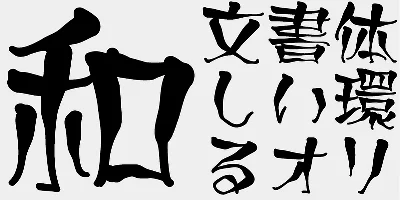
AB Tyuusyobokunenn Font
AB Tyuusyobokunenn Font is a highly stylized Japanese typeface with a distinctively traditional, literary aesthetic. The name “Tyuusyobokunenn” (中書墨年) evokes a classical feel—suggesting associations with handwritten manuscripts, ink calligraphy, and old-style printed texts. It’s an ideal choice for historical publications, cultural exhibitions, period-themed branding, or any project that aims to convey depth, heritage, and intellectual elegance.
AB Tyuusyobokunenn Font features dense brush-like strokes with subtle irregularities that give it an aged, scholarly look. Its characters feel handcrafted and expressive—perfect for titles, signage, and book covers that need to reflect authenticity and tradition. Despite its old-world charm, it maintains good readability, especially in larger text settings.
This font supports a wide range of Japanese scripts (Hiragana, Katakana, Kanji) along with Latin characters, making it suitable for bilingual designs and culturally immersive experiences.
Classic, thoughtful, and deeply evocative—AB Tyuusyobokunenn Font adds literary weight and cultural richness to your Japanese typography.